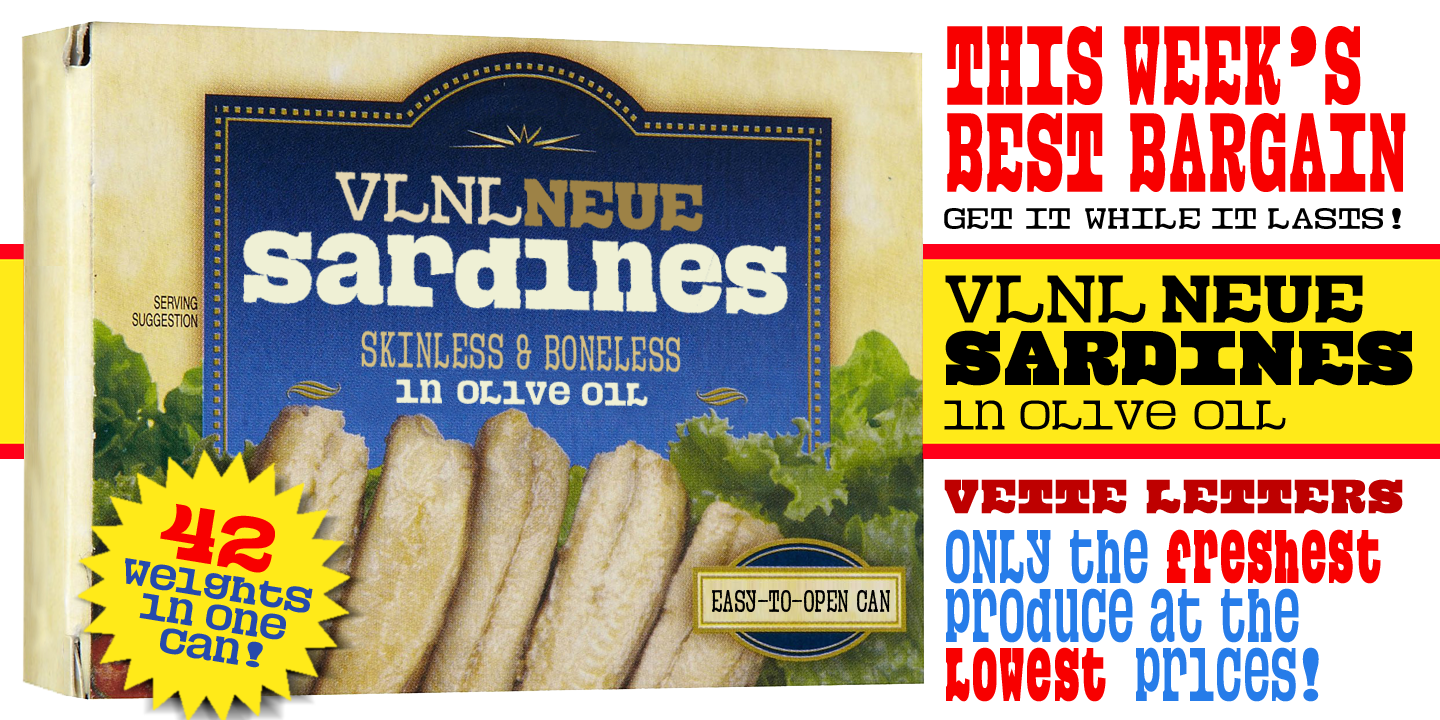
VLNL Neue Sardines Font Free Download delivers distinctive typography that combines quirky character with contemporary functionality for creative design applications. This commercial font requires purchase for business use, but you can download it for free for testing purposes to evaluate its unique unconventional characteristics in your creative projects.
VLNL Neue Sardines Font excels across diverse design applications including alternative brand identity, independent publishing, creative agency materials, artistic event promotions, unconventional packaging design, experimental editorial layouts, indie music marketing, and avant-garde advertising campaigns. Its distinctive character makes it particularly effective for projects requiring memorable personality while maintaining professional readability, ensuring your designs convey creative authenticity and artistic innovation across both digital platforms and specialty print materials.
What makes VLNL Neue Sardines Font truly exciting is its innovative approach to typography that perfectly balances experimental design with practical functionality through carefully crafted letterforms. The font features precisely engineered characters that incorporate unique proportions and unconventional elements that create striking visual personality while preserving optimal communication effectiveness. Its distinctive character construction combines artistic experimentation with contemporary usability, creating text that feels both creatively bold and professionally reliable. The font's optimized spacing and calculated character relationships ensure superior performance across various creative applications while maintaining the characteristic uniqueness that defines its artistic personality.
VLNL Neue Sardines Font presents a comprehensive type family designed to support diverse creative and experimental design requirements. The family typically includes regular, medium, and bold weights, along with corresponding italic variations that provide complete flexibility for unconventional typography compositions. Many versions feature extended character sets with artistic symbols, creative ornaments, and specialized glyphs that enhance authentic experimental aesthetic applications.
The VLNL Neue Sardines Font Free Download represents exceptional value for designers working on creative and alternative projects across multiple sectors. Whether developing indie brand identity, creating experimental publication materials, designing artistic event communications, or producing unconventional marketing content, this font delivers consistent creativity and memorable artistic impact. Its experimental characteristics make it particularly effective for industries including independent arts, creative agencies, alternative music, and experimental design sectors seeking to communicate genuine innovation and artistic authenticity.
For optimal results, VLNL Neue Sardines Font combines powerfully with bold color schemes and experimental design elements that reinforce its creative message. Its distinctive presence excels in headline applications while maintaining excellent performance in artistic publication contexts. The font's creative sophistication and experimental appeal make it an invaluable tool for creating innovative communications that resonate with audiences appreciating unconventional design and artistic expression.